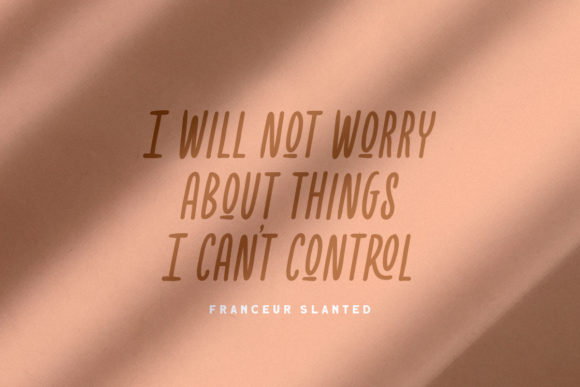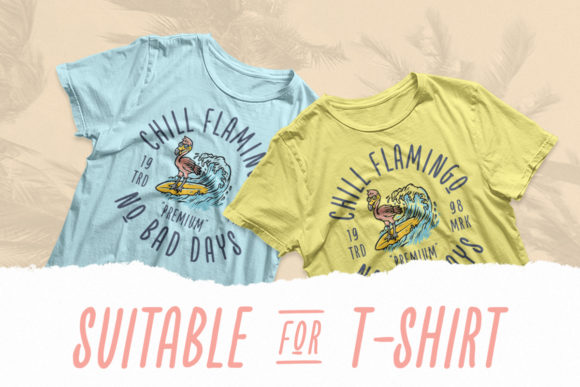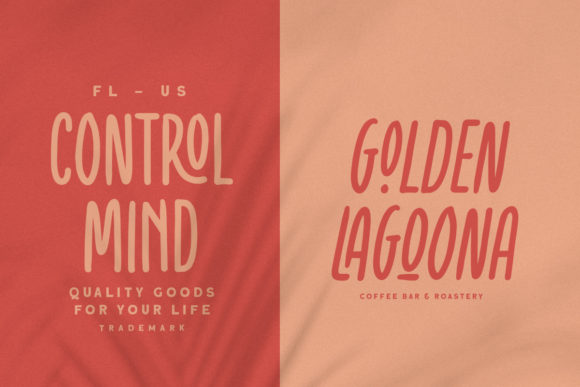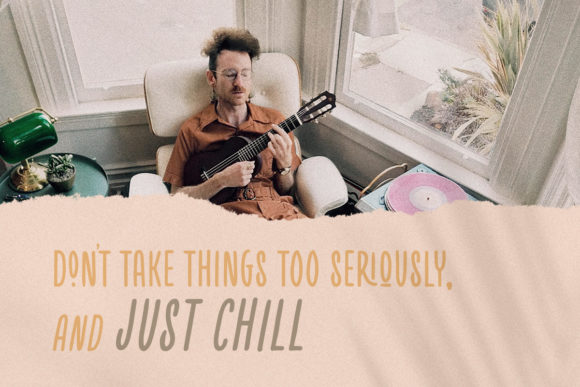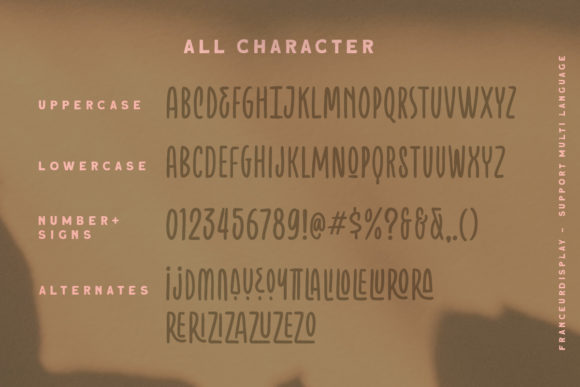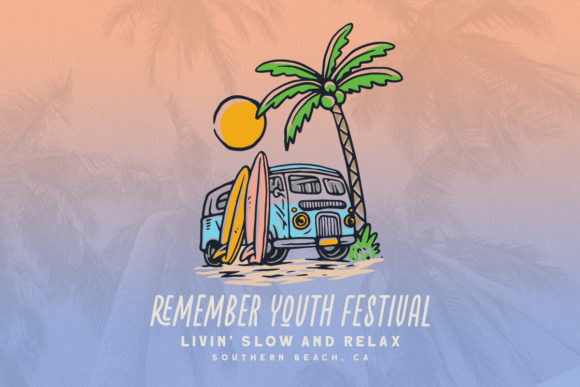
Introducing Franceur Font: Elevate Your Designs with a Simple yet Striking Lettered Display Font
Are you tired of using the same old fonts in your designs? Do you want to add a touch of elegance and sophistication to your creative projects? Look no further than Franceur Font, a beautiful and simple lettered display font that is sure to make your designs stand out. In this article, we’ll take a closer look at Franceur Font, its features, and how you can use it to take your designs to the next level.
What is Franceur Font?
Franceur Font is a modern, sans-serif display font that is characterized by its clean lines, simple shapes, and elegant curves. It’s a highly legible font that is perfect for use in a variety of design projects, from logos and branding to posters, flyers, and more. Franceur Font is designed to be versatile and adaptable, making it suitable for use in both digital and print applications.
Key Features of Franceur Font
So, what makes Franceur Font so special? Here are just a few of its key features:
- Simple and Neat Design: Franceur Font features a simple and neat design that makes it perfect for use in a variety of design projects.
- Highly Legible: The font is highly legible, even at small sizes, making it perfect for use in body text and captions.
- Elegant Curves: Franceur Font features elegant curves and smooth lines that give it a sophisticated and refined look.
- Versatile: The font is highly versatile and adaptable, making it suitable for use in a wide range of design projects.
How to Use Franceur Font in Your Designs
Franceur Font is a highly versatile font that can be used in a wide range of design projects. Here are just a few ideas to get you started:
- Logos and Branding: Use Franceur Font to create a simple yet elegant logo for your business or brand.
- Posters and Flyers: Franceur Font is perfect for use in posters and flyers, where its clean lines and simple shapes can help to grab attention and communicate your message.
- Social Media Graphics: Use Franceur Font to create eye-catching social media graphics that will help to elevate your brand and engage your audience.
- Web Design: Franceur Font can be used in web design to create a clean and elegant look that will help to improve user experience.
Tips for Getting the Most Out of Franceur Font
Here are just a few tips for getting the most out of Franceur Font:
- Use it with a Contrasting Font: Franceur Font pairs well with a contrasting font, such as a serif font, to create visual interest and add depth to your design.
- Experiment with Different Sizes: Franceur Font looks great at a variety of sizes, from large display headings to smaller body text.
- Don’t be Afraid to Get Creative: Franceur Font is a versatile font that can be used in a wide range of design projects, so don’t be afraid to get creative and try new things.
Franceur Font is a beautiful and simple lettered display font that is sure to elevate your designs and make them stand out. With its clean lines, simple shapes, and elegant curves, Franceur Font is perfect for use in a wide range of design projects, from logos and branding to posters, flyers, and more. So why not give Franceur Font a try today and see how it can help to take your designs to the next level?